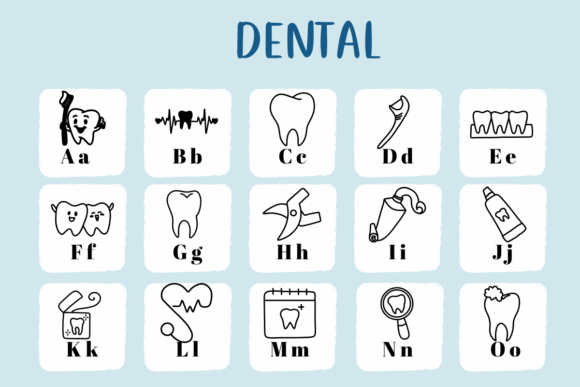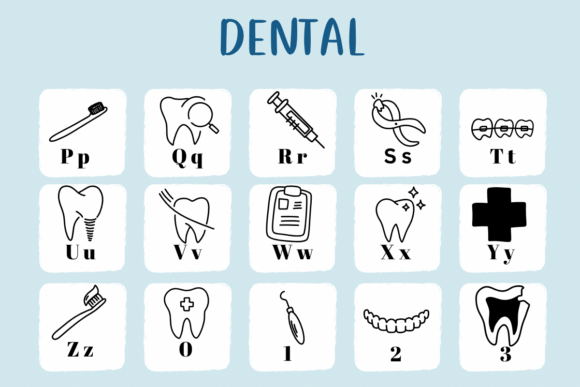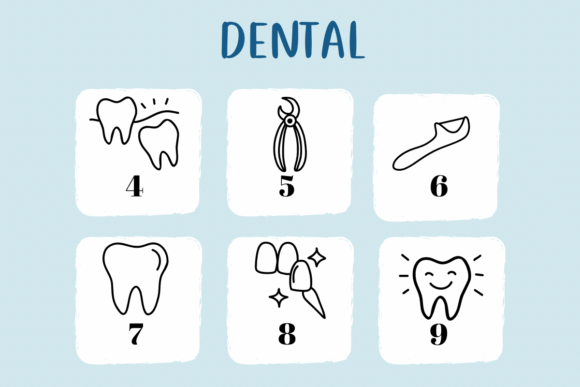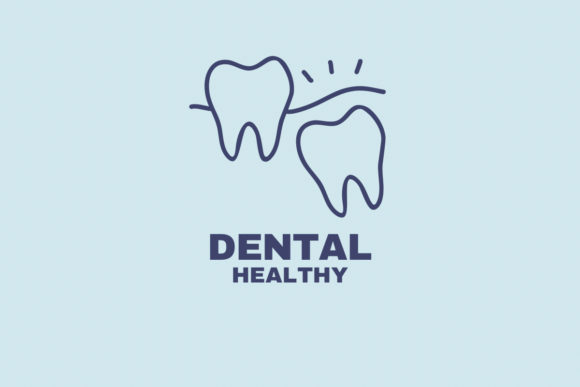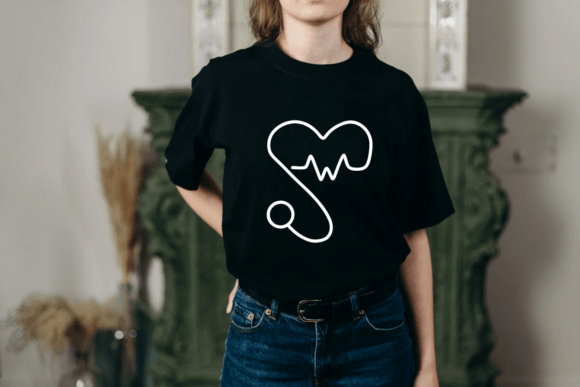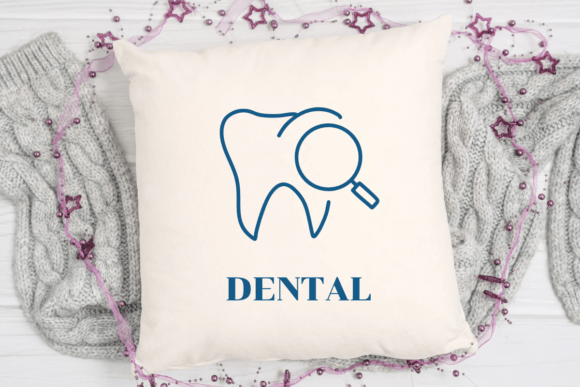
Dental Font: A Fun and Creative Way to Add a Dental Touch to Your Designs
Are you a designer or crafter looking for a unique and creative way to add a dental touch to your designs? Look no further than Dental Font, also known as Dental Dingbat! This font is filled with cute, simple icons related to dental care, including images of toothbrushes, teeth, toothpaste, floss, and other dental items. In this article, we’ll take a closer look at Dental Font and explore its features, benefits, and uses.
What is Dental Font?
Dental Font, or Dental Dingbat, is a special type of font that consists of symbols and icons related to dental care. Instead of traditional letters and numbers, this font features a collection of images and graphics that can be used to add a fun and creative touch to your designs. The font includes a wide range of dental-related icons, such as toothbrushes, teeth, toothpaste, floss, and more.
Features of Dental Font
Dental Font is a versatile and user-friendly font that offers a range of features and benefits. Some of its key features include:
- Cute and simple icons: The font features a collection of cute and simple icons that are perfect for adding a fun and playful touch to your designs.
- Dental care theme: The font is specifically designed for dental care, making it a great choice for dentists, dental hygienists, and other healthcare professionals.
- Wide range of icons: The font includes a wide range of dental-related icons, including toothbrushes, teeth, toothpaste, floss, and more.
Benefits of Using Dental Font
There are many benefits to using Dental Font in your designs. Some of the most significant advantages include:
- Unique and creative designs: Dental Font allows you to create unique and creative designs that stand out from the crowd.
- Perfect for dental care professionals: The font is specifically designed for dental care, making it a great choice for dentists, dental hygienists, and other healthcare professionals.
- Easy to customize: The font is easy to customize, allowing you to adjust the size, color, and style to suit your design needs.
- Fun and engaging: The font adds a fun and engaging touch to your designs, making them more appealing to your audience.
Uses of Dental Font
Dental Font is a versatile font that can be used in a variety of design applications. Some of the most popular uses include:
- Dental care websites: The font is perfect for dental care websites, adding a fun and creative touch to your design.
- Social media graphics: The font can be used to create engaging social media graphics, such as Facebook posts, Twitter headers, and Instagram stories.
- Brochures and flyers: The font is great for brochures and flyers, adding a professional and creative touch to your marketing materials.
- Craft projects: The font can be used in craft projects, such as scrapbooking, card making, and other paper crafts.
Dental Font is a fun and creative way to add a dental touch to your designs. With its cute and simple icons, dental care theme, and wide range of icons, this font is perfect for designers and crafters looking for a unique and engaging way to create their designs. Whether you’re a dental care professional or just looking for a fun and creative font, Dental Font is a great choice. So why not give it a try and see what amazing designs you can create?